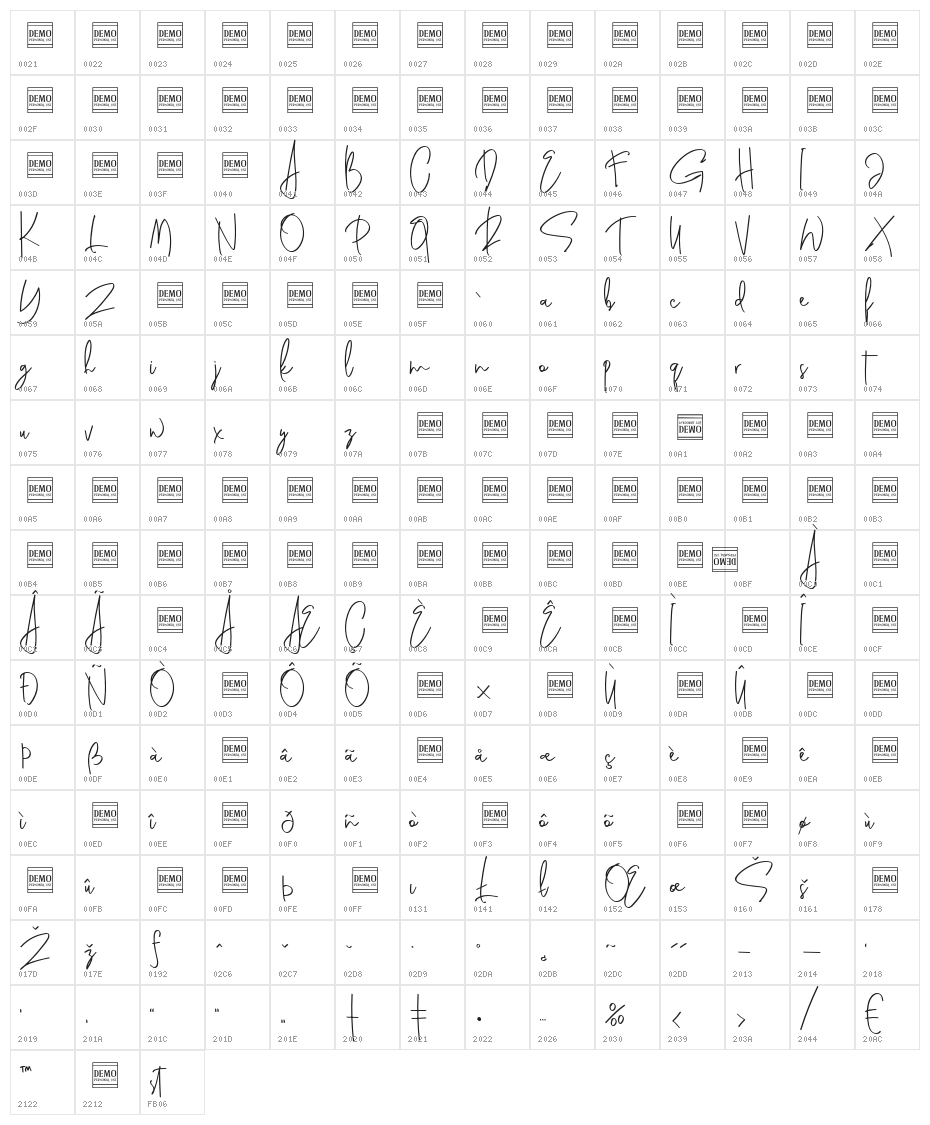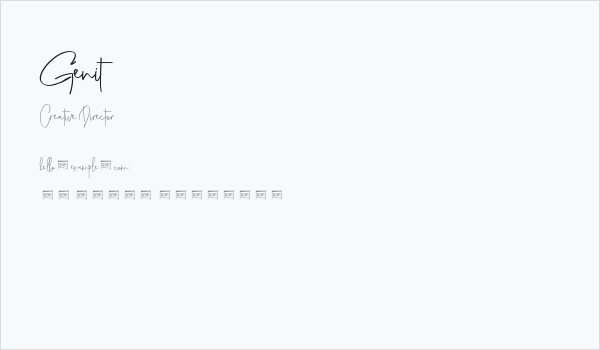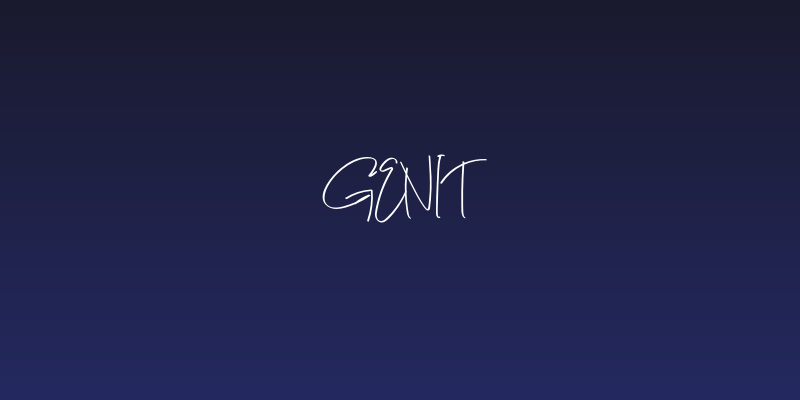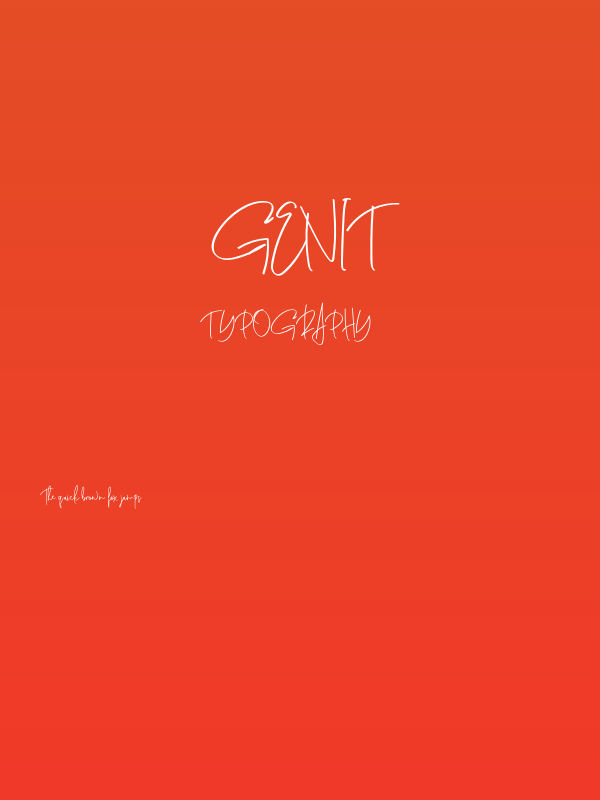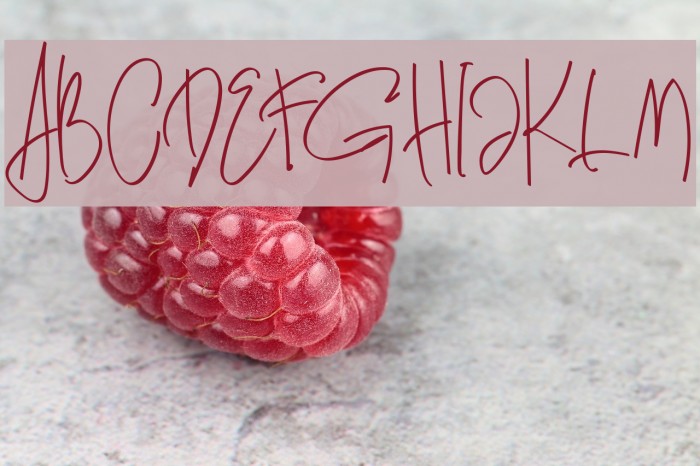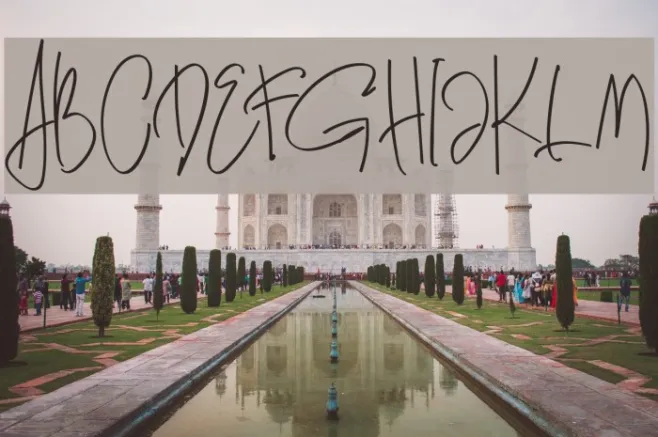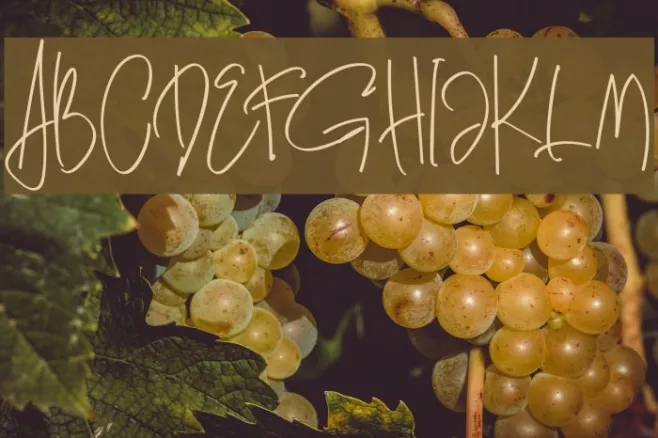
Genit Font
Genit Description
This font features a dynamic and expressive handwritten style, characterized by its fluid and cursive letterforms. The uppercase letters are tall and slightly slanted, giving a sense of movement and energy. The lowercase letters maintain a consistent flow, with some letters extending below the baseline, adding to its casual and artistic appearance. The numerals and special characters are crafted with the same lively flair, making them blend seamlessly with the alphabet. This font's unique style is perfect for projects that require a personal touch or a creative edge.
| Proposed Projects | Ideal for invitations, greeting cards, personal branding, and artistic projects. |